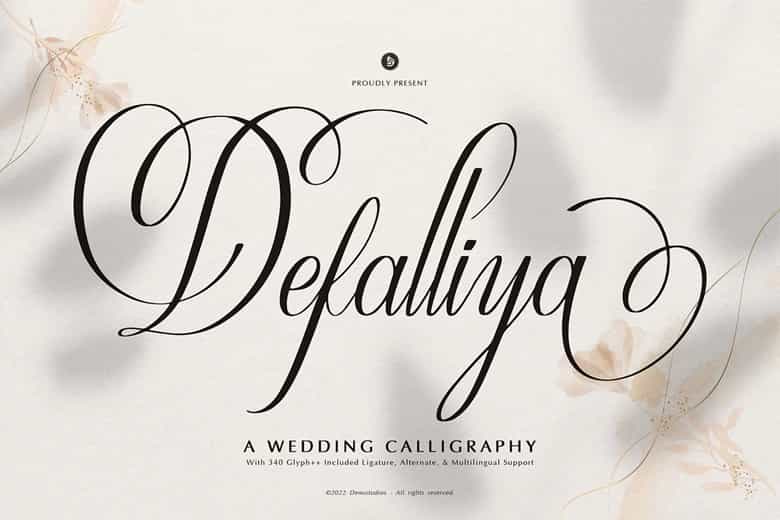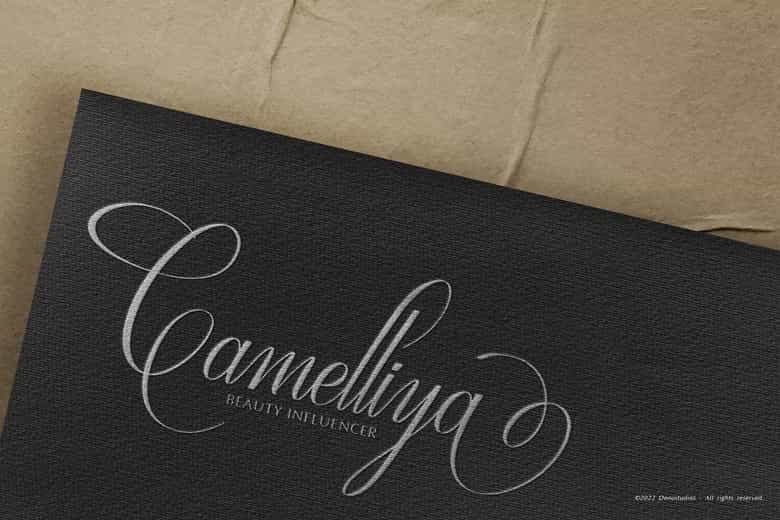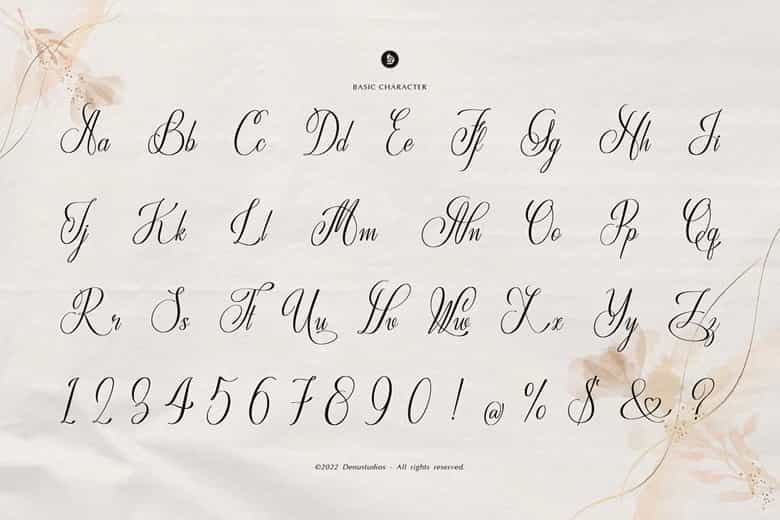
This amazing wedding calligraphy font shows off both beauty and grace. Featuring over 340 glyphs including multiple calligraphy styles, this script font suits romantic branding and both hand and letterpress printing. It’s curved designs and fancy patterns make it classy and fit well in wedding, logo or formal designs that call for impressive design.